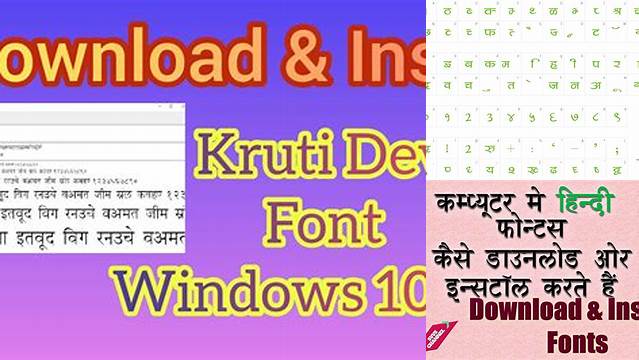
Hey guys! Are you looking to download Kruti Dev Hindi fonts for your Windows 10 system? You've come to the right place! Kruti Dev is a widely used font for Hindi typing, especially in government jobs and official documents. So, getting your hands on these fonts for free is super useful. Let's dive into everything you need to know about Kruti Dev fonts and how to download them.
1. What is Kruti Dev Font?
Kruti Dev is a popular Hindi font that's used extensively in India for various purposes, including document creation, graphic design, and web content. It's a non-Unicode font, which means it uses a specific character encoding system. This makes it different from Unicode fonts like Arial or Times New Roman, which can represent a much wider range of characters and languages. Kruti Dev's popularity stems from its ease of use and compatibility with many older systems and software. It became a standard for Hindi typing in the pre-Unicode era. So, why is Kruti Dev so important, especially in Windows 10? Well, many government offices and organizations in India still rely on Kruti Dev for their official work. This means that if you're dealing with Hindi documents in these sectors, you'll likely need Kruti Dev fonts installed on your system. Plus, if you're learning Hindi typing or need to create Hindi content for specific purposes, knowing how to use Kruti Dev is a valuable skill. The font's straightforward layout and wide availability make it a go-to choice for many users. It’s also worth noting that while Unicode fonts are becoming more prevalent, Kruti Dev remains relevant due to its legacy usage. Many existing documents and systems still rely on it, making it essential for backward compatibility. So, understanding and having Kruti Dev fonts on your Windows 10 system ensures you can work with a broad range of Hindi text documents without any issues. Now that we know what Kruti Dev is, let's move on to where you can safely download these fonts for free.
2. Why Use Kruti Dev in Windows 10?
So, why should you bother with Kruti Dev in Windows 10? Well, the primary reason is its widespread use in various sectors, particularly in India. If you're working with government documents, legal papers, or any official communication in Hindi, chances are, they're formatted using Kruti Dev. This font has been a standard for Hindi typing for a long time, and many organizations still rely on it. Windows 10, being the latest operating system, needs to be compatible with these older standards to ensure that users can access and work with legacy documents. This means having Kruti Dev fonts installed on your system is essential for seamless document handling. Another reason to use Kruti Dev is its simplicity and ease of use. For those who are accustomed to its layout, typing in Hindi becomes second nature. The font's design is straightforward, making it easy to read and write. This is particularly important in professional settings where clarity and efficiency are key. Furthermore, Kruti Dev remains crucial for maintaining backward compatibility. Many older systems and software are designed to work with non-Unicode fonts like Kruti Dev. If you need to open or edit documents created in these systems, having Kruti Dev installed is a must. Trying to open a Kruti Dev document without the font installed can lead to garbled text and formatting issues. In addition to these practical reasons, Kruti Dev also has a historical significance. It represents a significant part of the digital landscape of Hindi typing. For many users, it's not just a font; it's a familiar tool that they've been using for years. So, whether you're dealing with old documents, working in a professional setting that uses Kruti Dev, or simply prefer its layout, having Kruti Dev fonts on your Windows 10 system is a smart move. Let’s move forward and explore the best websites to download these fonts for free.